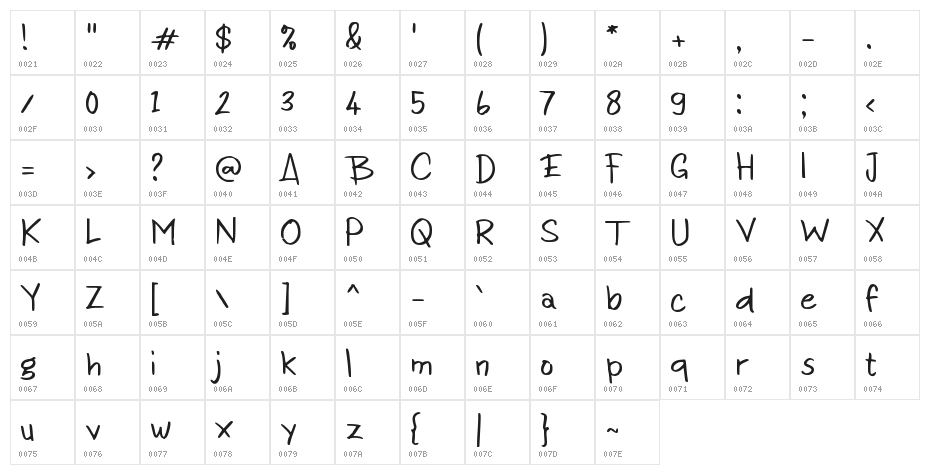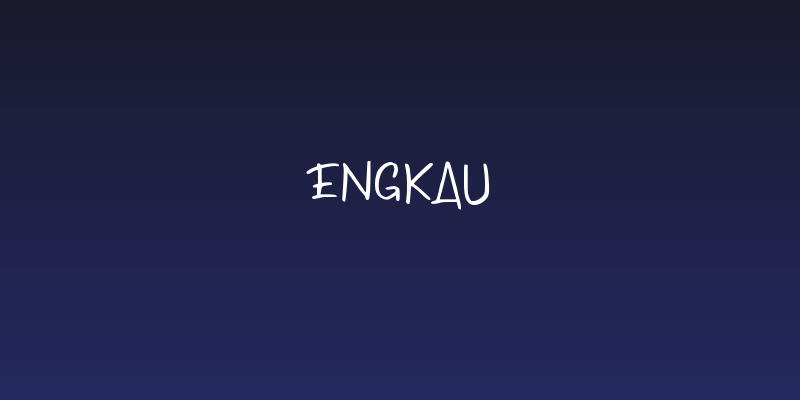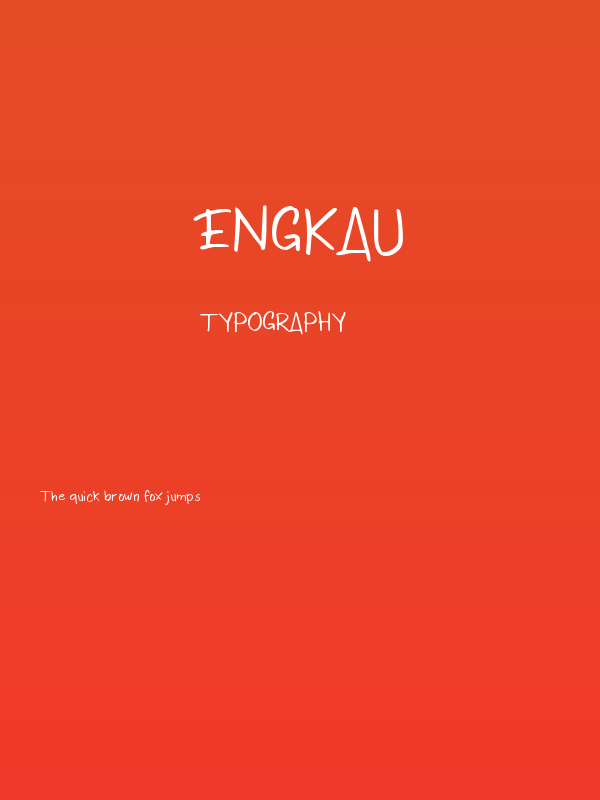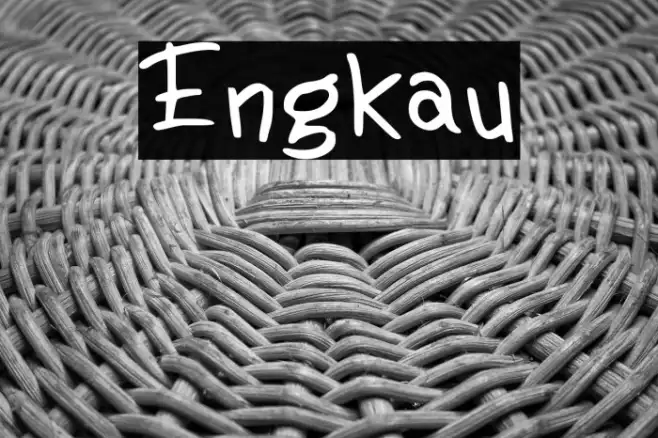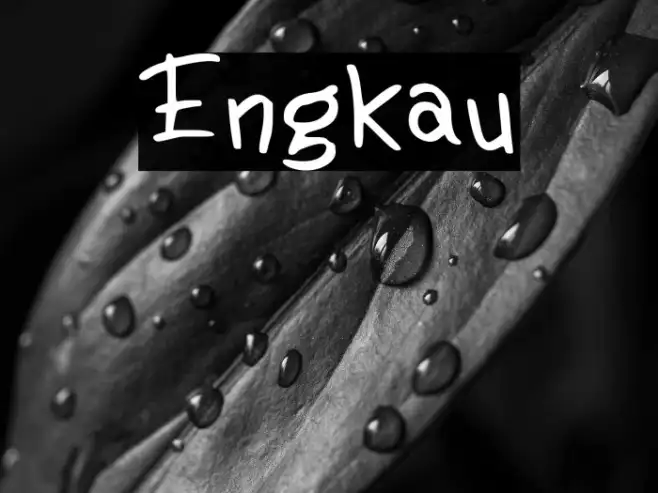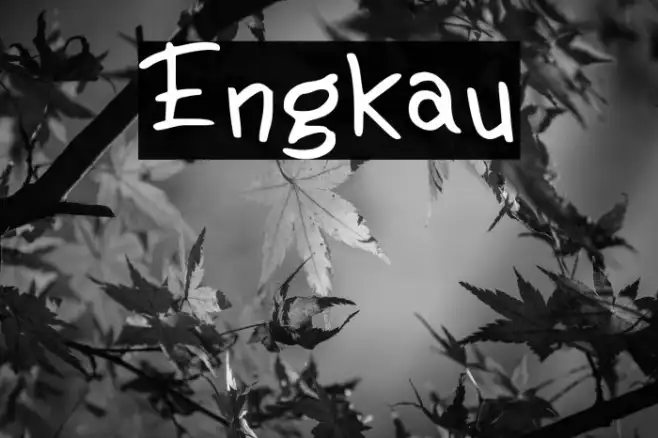
Engkau Font
Engkau Description
This font features a playful and casual handwritten style, characterized by its uneven strokes and informal appearance. The uppercase letters are bold and slightly tilted, giving a dynamic feel, while the lowercase letters maintain a consistent flow with rounded edges. The numbers and special characters follow the same playful aesthetic, making them suitable for creative and informal contexts. The overall design is approachable and friendly, ideal for projects that require a personal touch. The font's legibility is maintained despite its casual style, making it versatile for various uses.
| Proposed Projects | Ideal for greeting cards, children's books, informal invitations, and playful branding. |